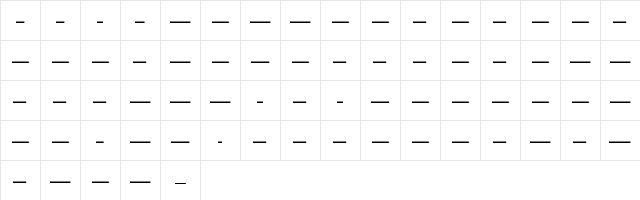
City HomelessOne Free Font
City HomelessOne
Style: HomelessOne
City Family
Design Context for City
City is a composed and adaptable typeface that performs quietly and consistently across a wide range of design contexts.